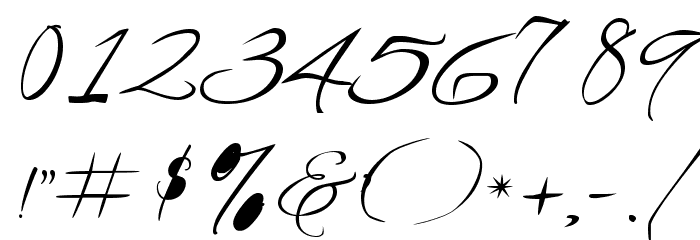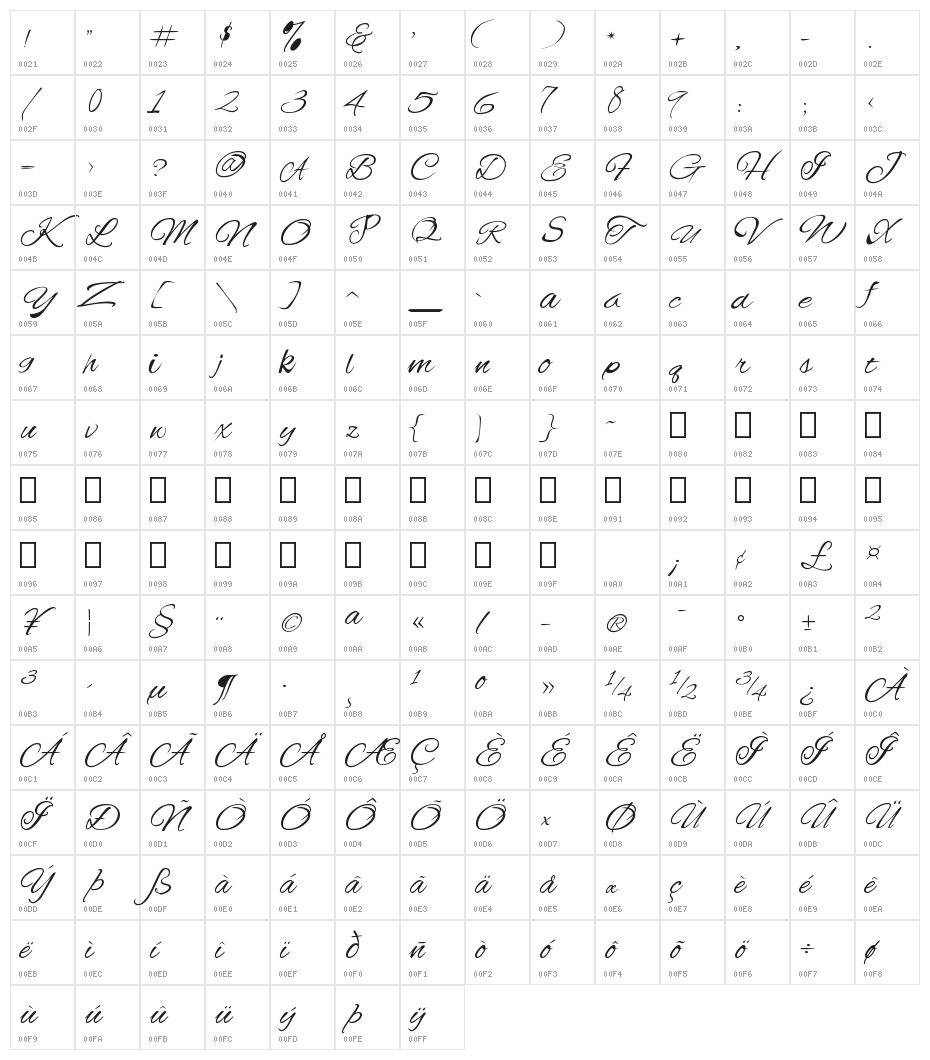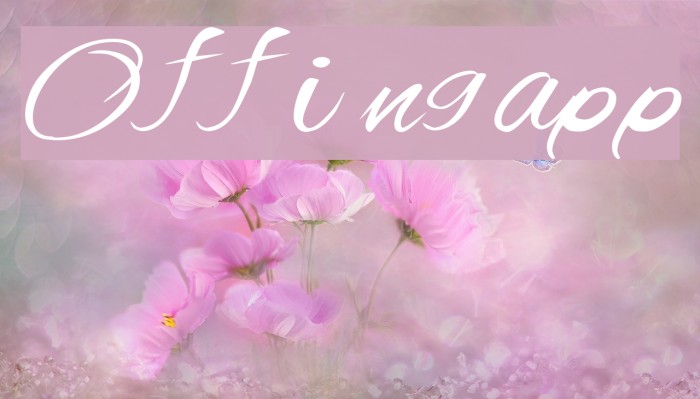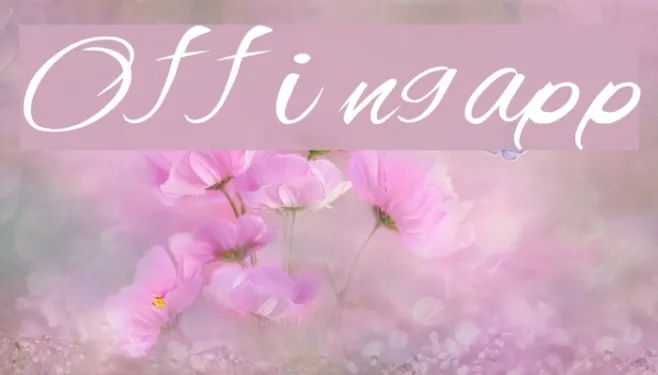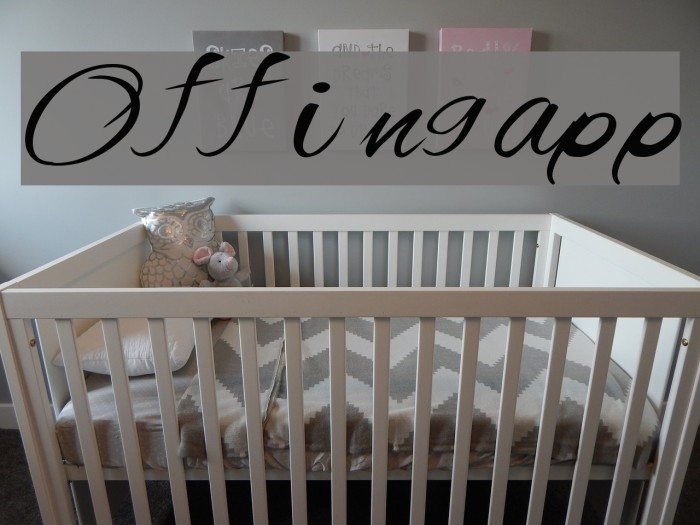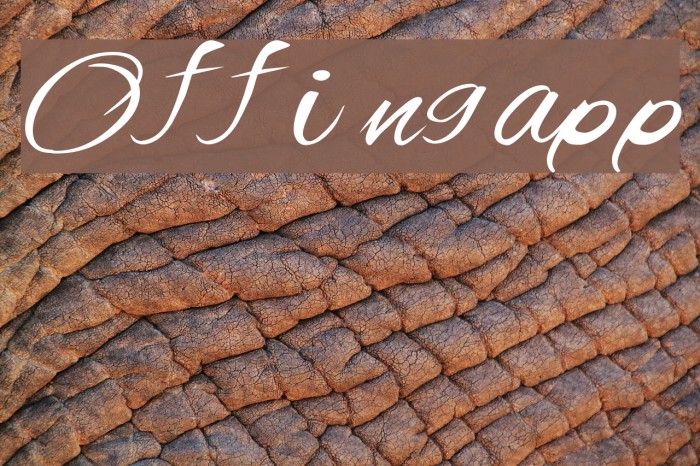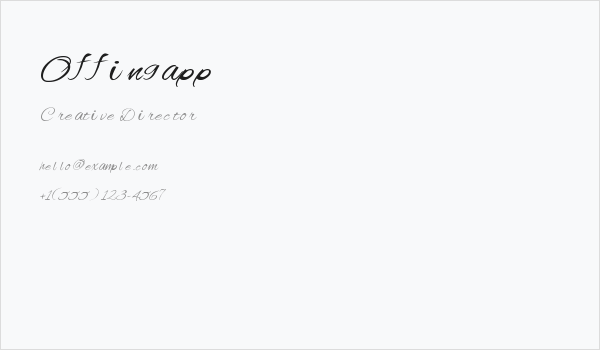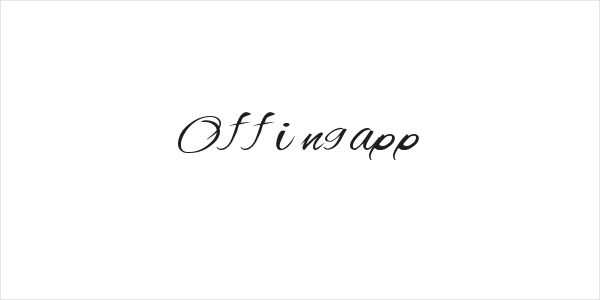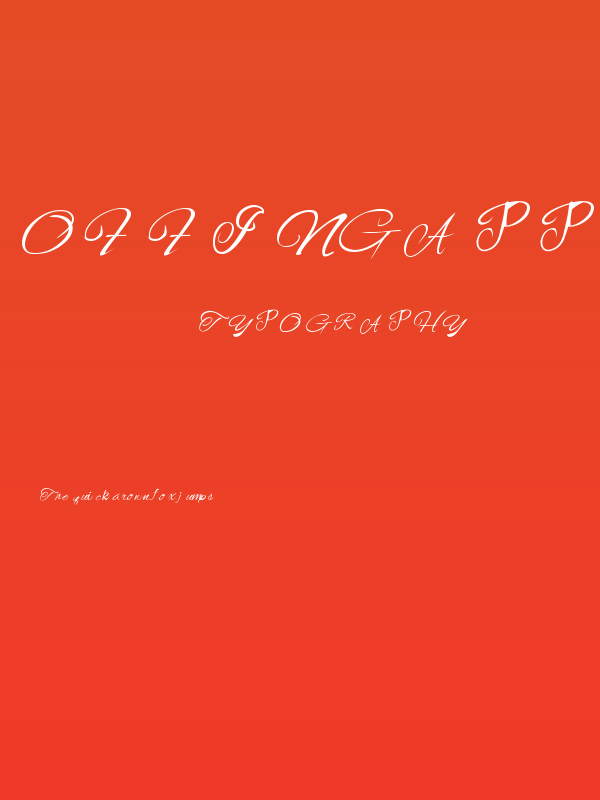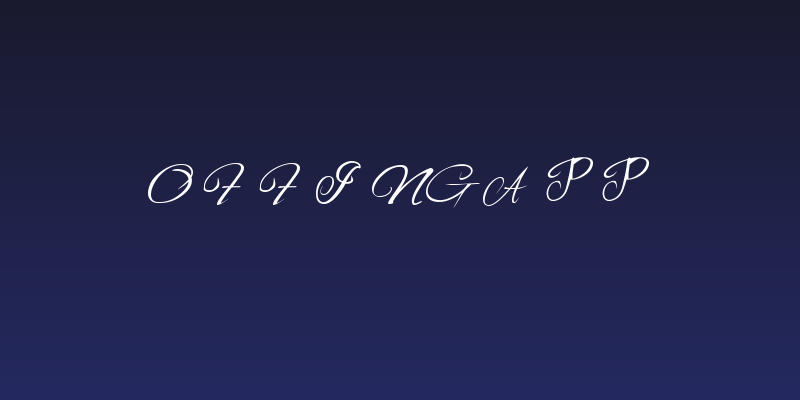
Offingapp Font
Offingapp Description
This elegant script font features a flowing, cursive style with a sophisticated flair. The uppercase letters are ornate and slightly slanted, with intricate loops and swashes that add a touch of elegance. The lowercase letters maintain a consistent flow, with smooth curves and a graceful appearance. Numbers are designed with a similar fluidity, maintaining the overall aesthetic of the font. Special characters are thoughtfully crafted to blend seamlessly with the rest of the typeface, ensuring a cohesive look. This font is perfect for projects that require a touch of class and sophistication.
Overall StyleElegant
Use CaseLogos, Invitations, Decorative text
Proposed ProjectsIdeal for wedding invitations, elegant branding, greeting cards, and high-end product packaging.